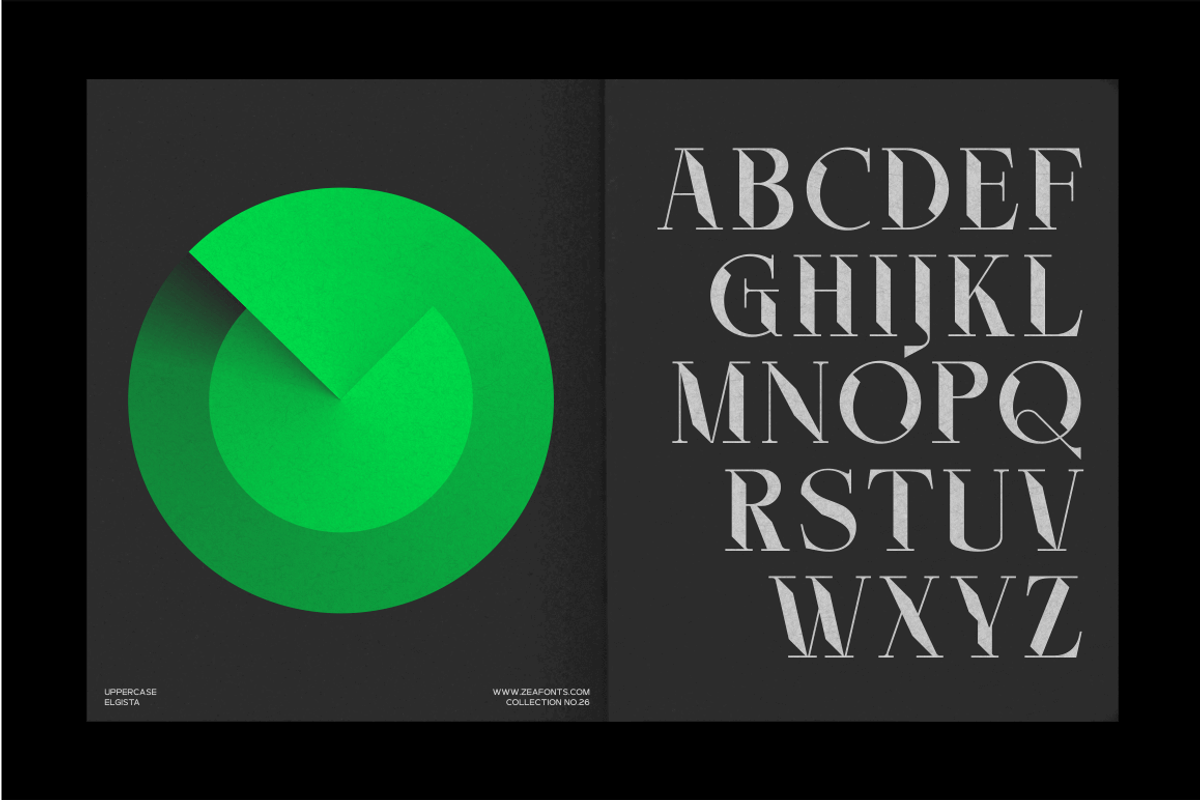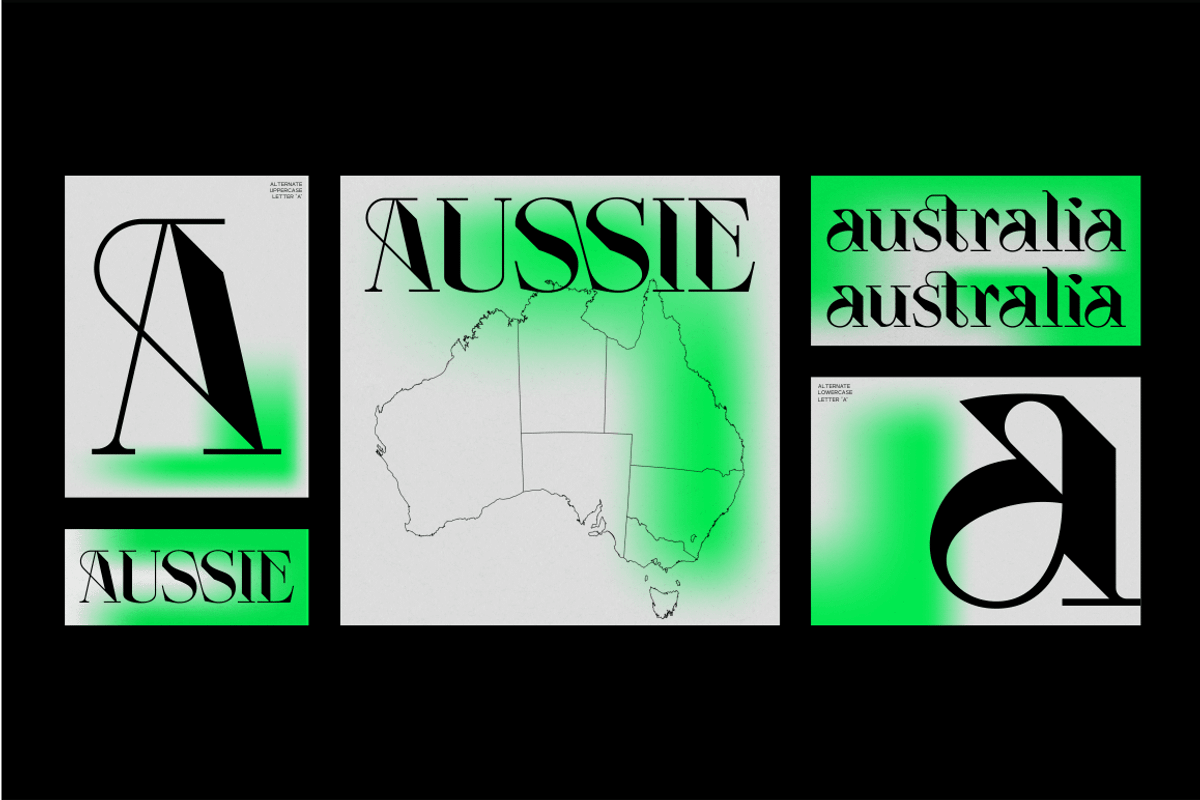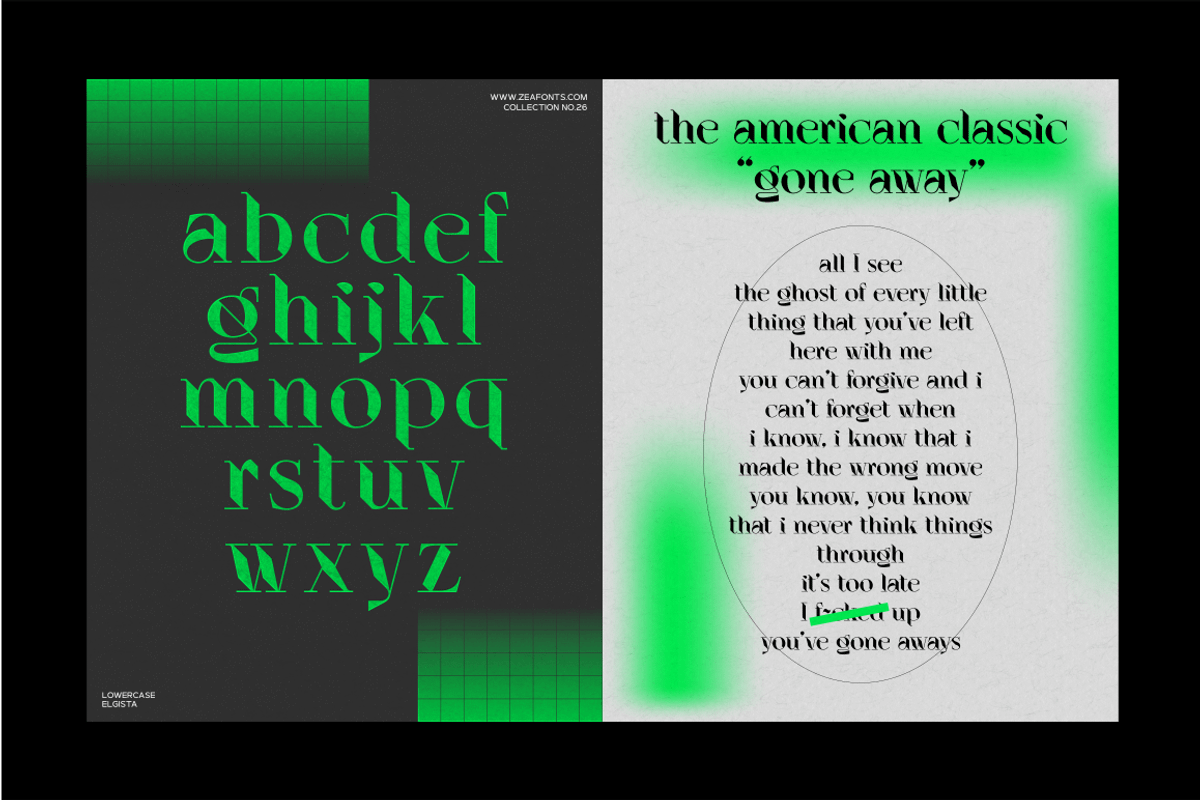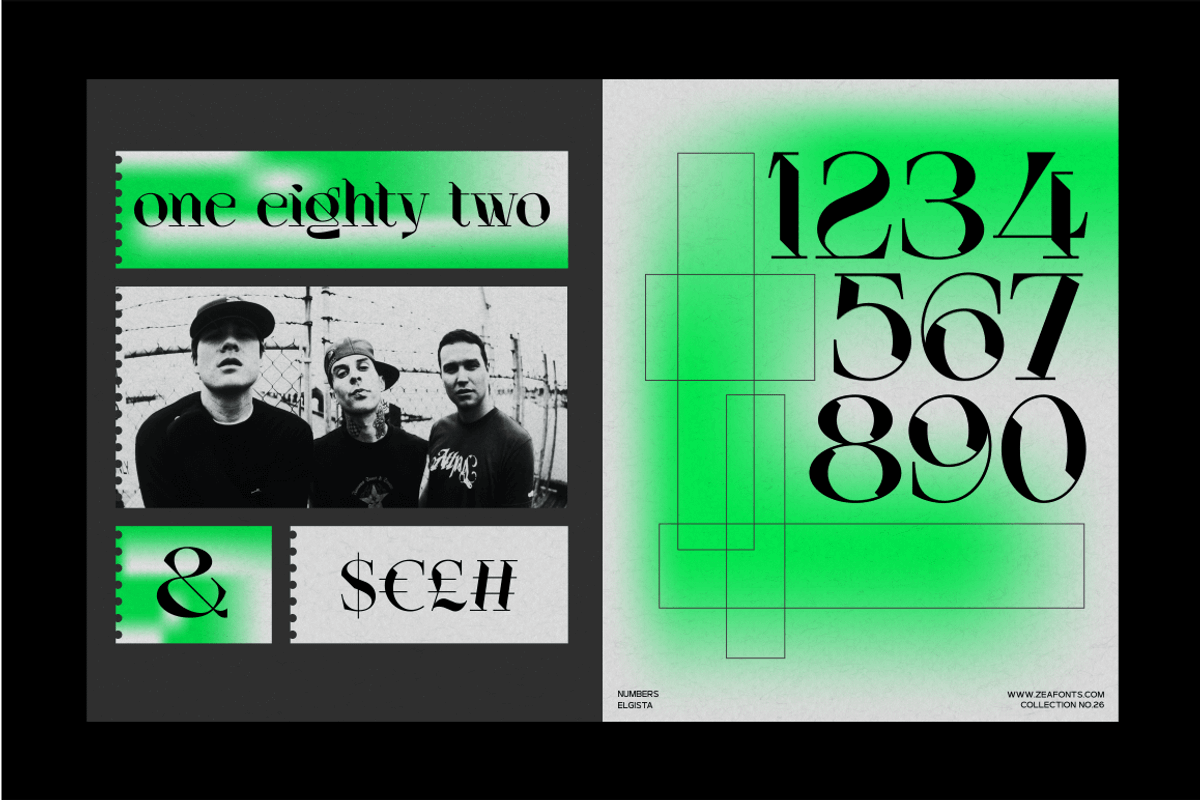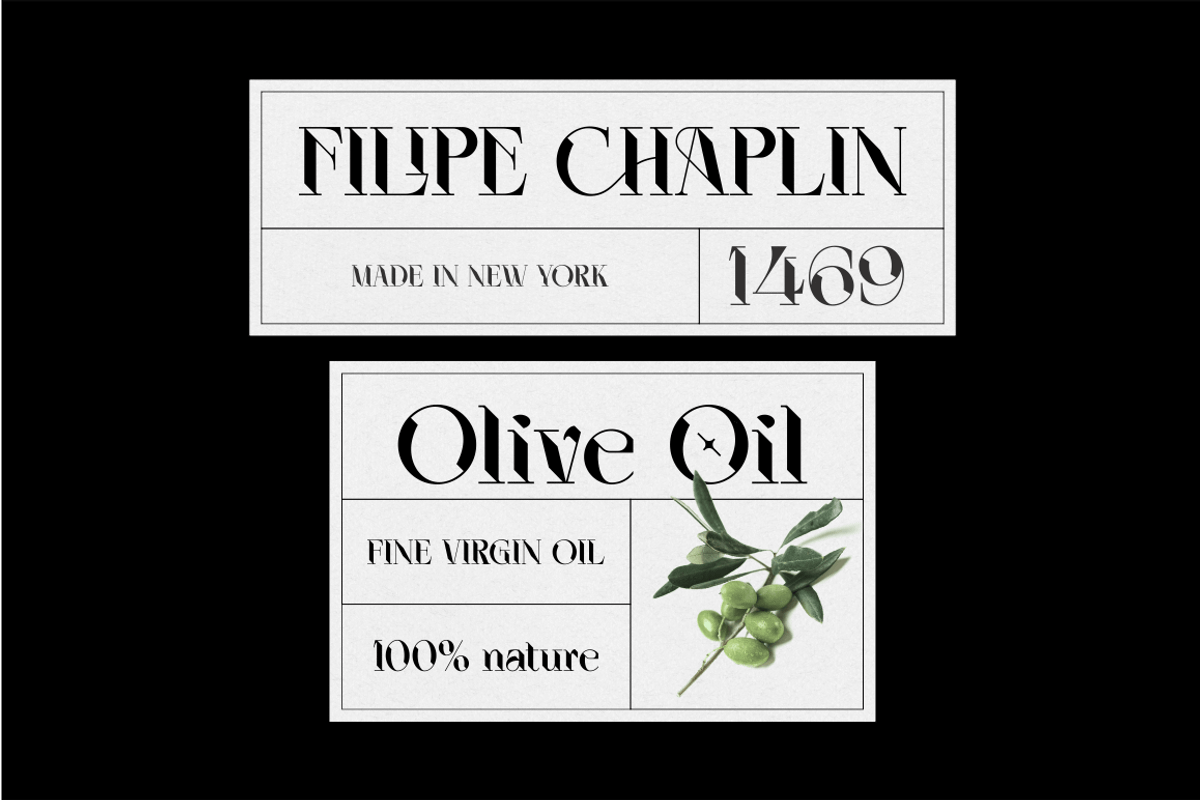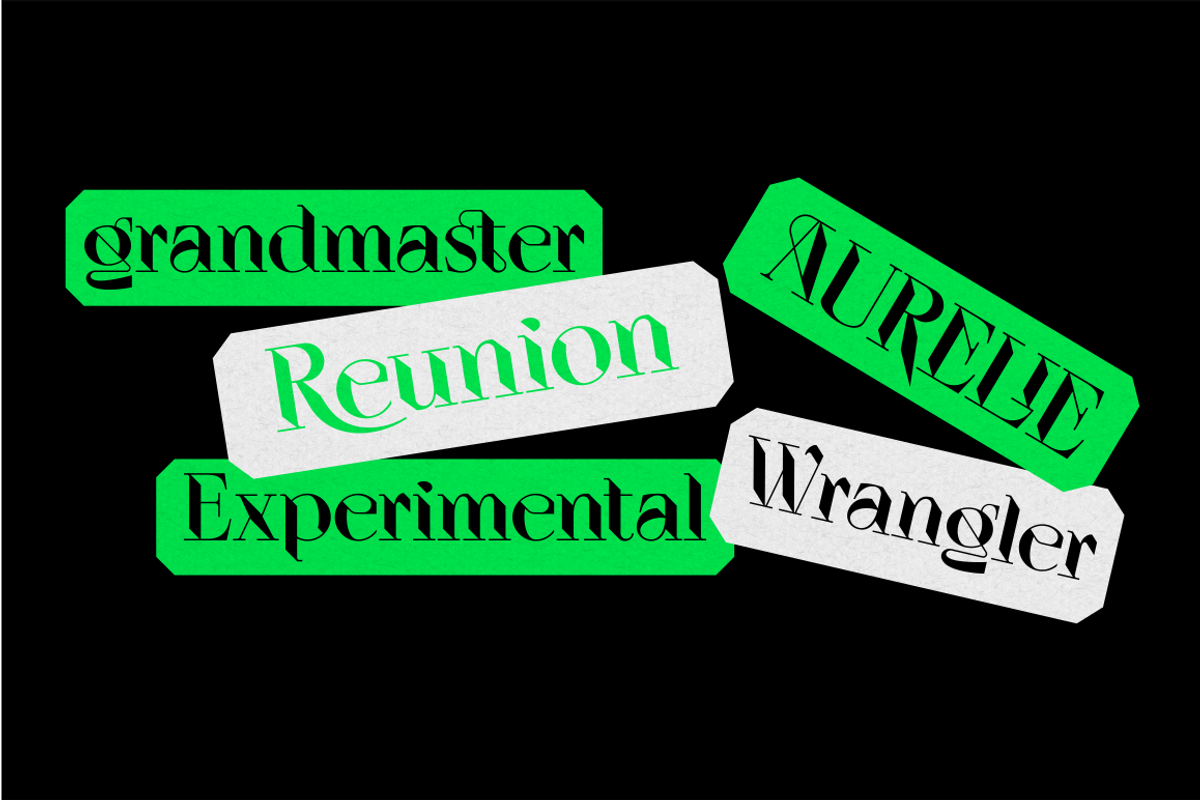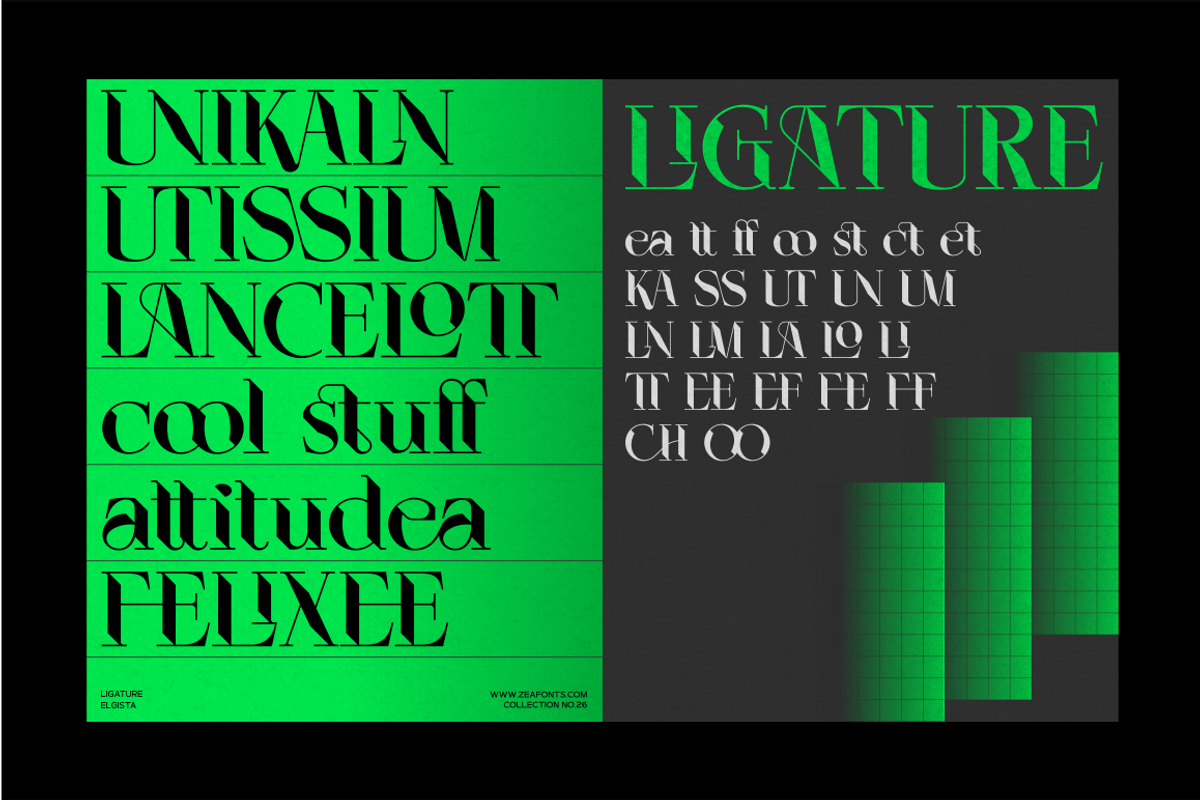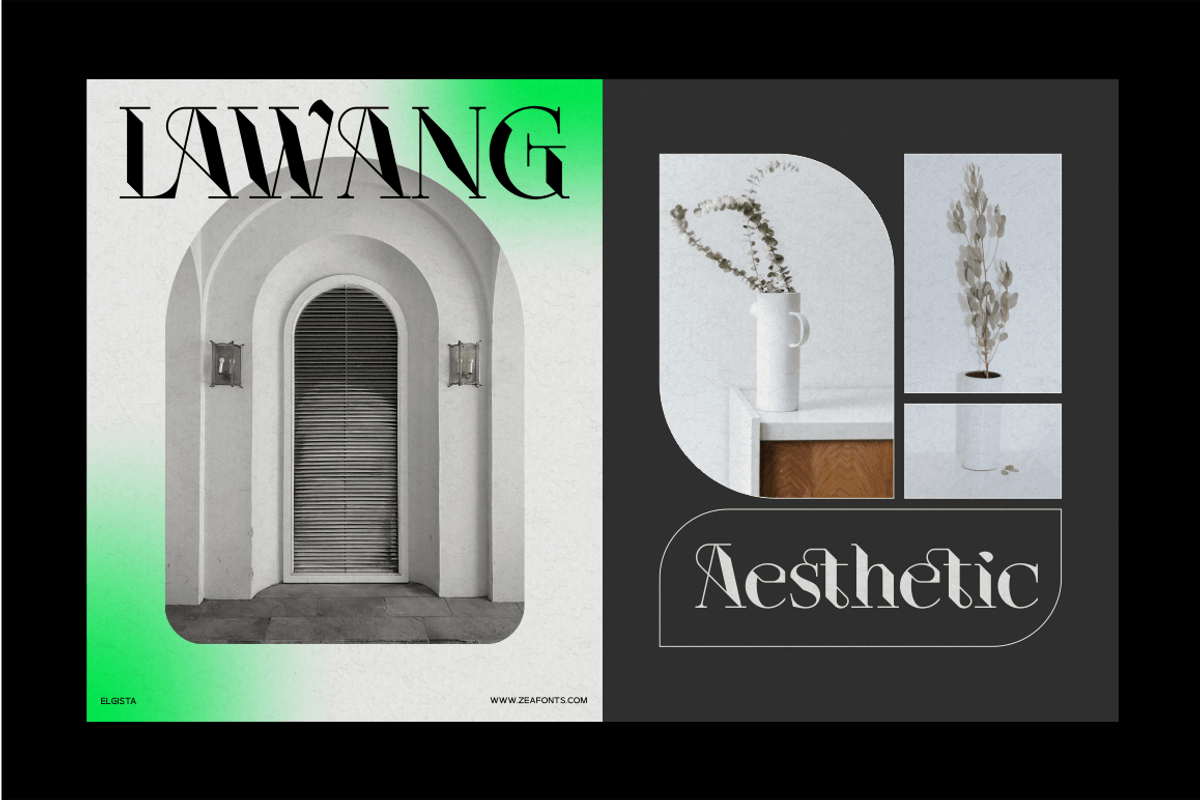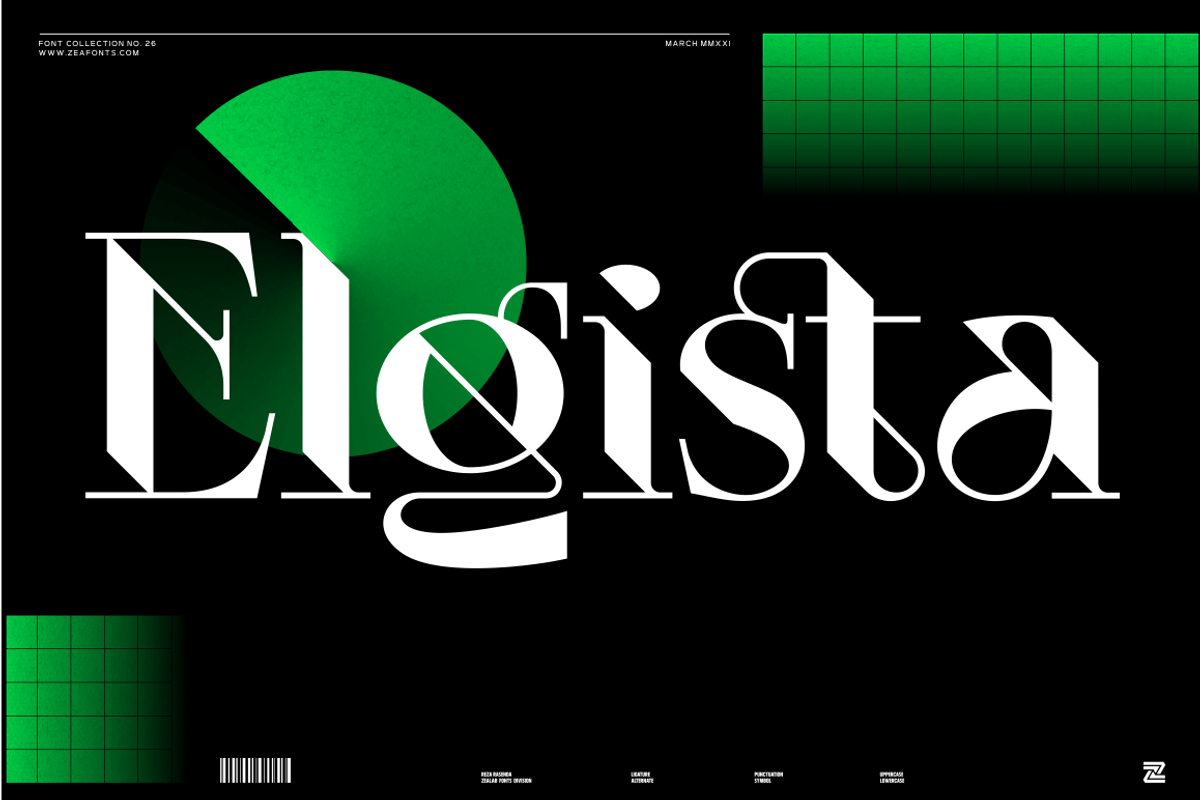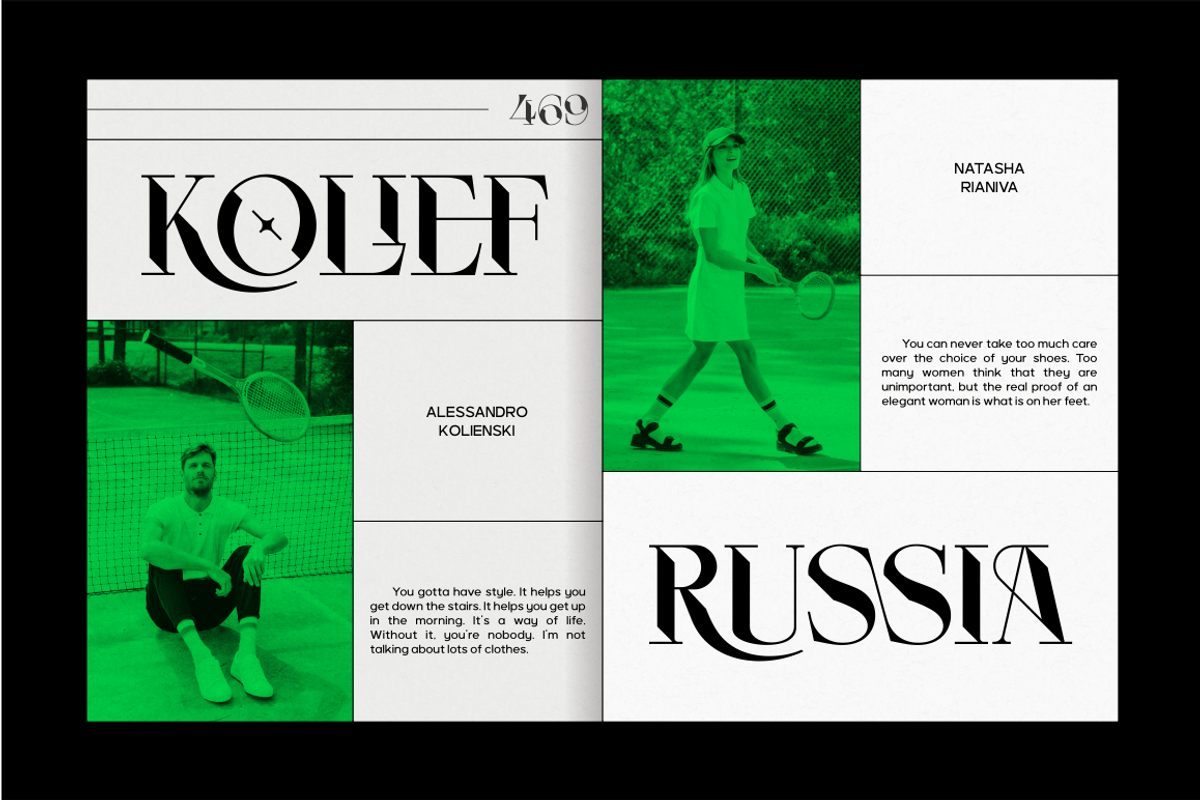
ELGISTA
Elgista is modern serif display font with design choices and a combination between high contrast, experimental, and brutalism style. Elgista comes with stylistic, alternates, ligatures and supports multilingual languages.